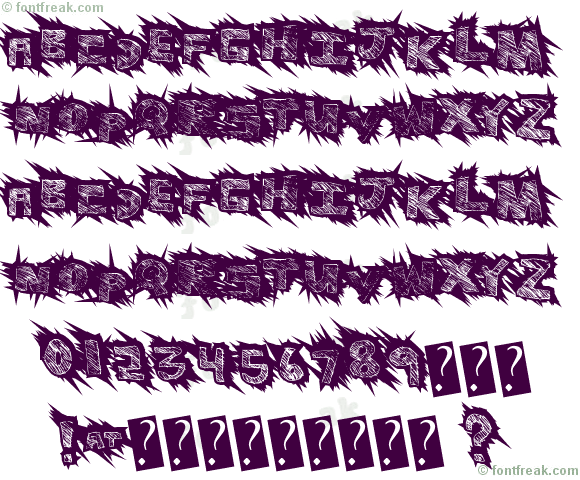
Scratchingly
Scratchingly, created by XEROGRAPHER FONTS in 2012, is a unique display font that captures attention with its playful and edgy aesthetic. This font falls into the decorative category, characterized by its jagged, distressed strokes that evoke a sense of spontaneity and energy. The uneven stroke weights and sharp angles give it a dynamic appearance, making it visually striking for a variety of applications. The spacing is tight, enhancing the font's bold presence while maintaining readability.
Scratchingly is well-suited for various creative projects. It shines in contexts such as movie posters where a dramatic flair is needed, or on band merchandise to convey an edgy vibe. It can also be an excellent choice for event flyers, especially those promoting music festivals or skateboarding events, where a youthful, rebellious spirit is in demand. Additionally, it works beautifully on restaurant menus that aim for a casual and fun atmosphere, enticing patrons with its unique style.
The target audience for Scratchingly includes graphic designers seeking to add a distinctive flair to their projects, small business owners looking to capture the attention of their customers, and content creators in need of an engaging typeface to enhance their visual storytelling.